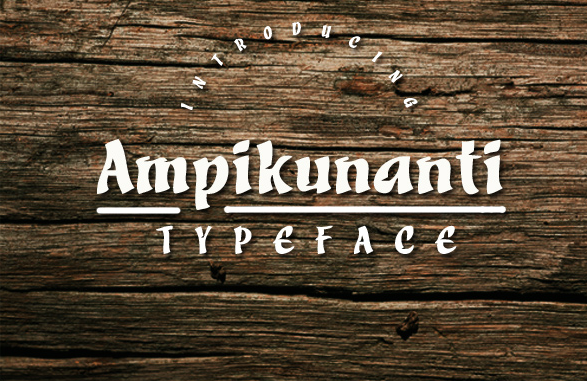
The Ampikunanti Font: A Hand-Crafted Beauty for Your Designs
I still remember the design project that led me to discover the Ampikunanti font. I was working on a branding project for a crafty client, and I needed a font that would reflect her handmade, artisanal products. I spent hours scouring font websites, but nothing seemed quite right – until I stumbled upon Ampikunanti. ✨
This stunning hand-crafted font instantly captured the essence of my client’s brand, and I knew I had found the perfect fit. In this article, I’ll share my experience with Ampikunanti, including what I love about it, some quirks to be aware of, and practical tips on how to use it in your designs.
- ✨ Unique, hand-crafted aesthetic that adds a personal touch to any design
- ✅ Excellent for branding, packaging, and crafty projects
- ✅ Wide range of OpenType features and glyphs for added versatility
- ✅ Beautifully crafted letters with a distinctive, artistic flair
While Ampikunanti is an amazing font, there are a few things to keep in mind: 🤔
- ⚠️ Some characters may not work well at very small font sizes, so it’s best to use it at larger sizes (12pt or larger)
- ⚠️ Limited availability of condensed or italic styles, which may limit its use in certain design contexts
Ampikunanti was designed with a passion for hand-crafted artistry. The font’s creator drew inspiration from traditional craftsmanship and the unique imperfections that come with handmade products. The result is a font that’s both beautiful and authentic, perfect for designers who want to add a personal touch to their work.
Q: Is Ampikunanti a versatile font?
A: Yes, Ampikunanti has a wide range of OpenType features and glyphs, making it versatile enough for use in a variety of design contexts, from branding and packaging to digital media and print.
Q: Can I use Ampikunanti for body text?
A: While Ampikunanti is beautiful, it’s best suited for display text or headings. For body text, you may want to choose a font with better legibility at smaller font sizes.